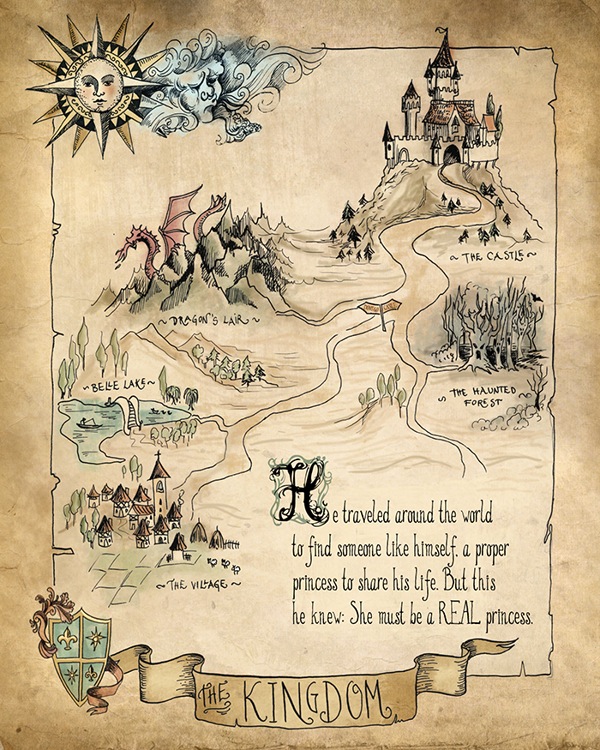
Biljana Kroll
American illustrator. For The Princess and the Pea (2013; the original is an an old Swedish tale, rewritten and published by Hans Christian Andersen in 1835), she created a fairytale hand-drawn typeface. |